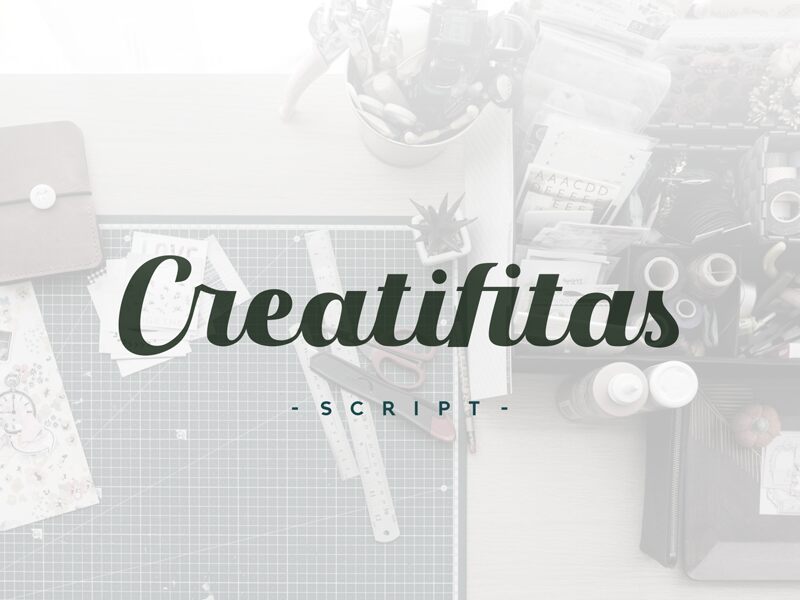
Creatifitas, designed by Nuryanto Dwi, is a bold calligraphy script font that exudes elegance and sophistication. Its timeless style makes it suitable for a variety of projects, including wedding invitations and stationery, logo design, and branding. The fluid lines of this font evoke a sense of creativity and imagination, making it perfect for art-related projects such as book covers or posters. Creatifitas' bold weight ensures that your message will be visually impactful while also conveying a sense of professionalism. Add some flair to your designs with this stunning calligraphy script font!